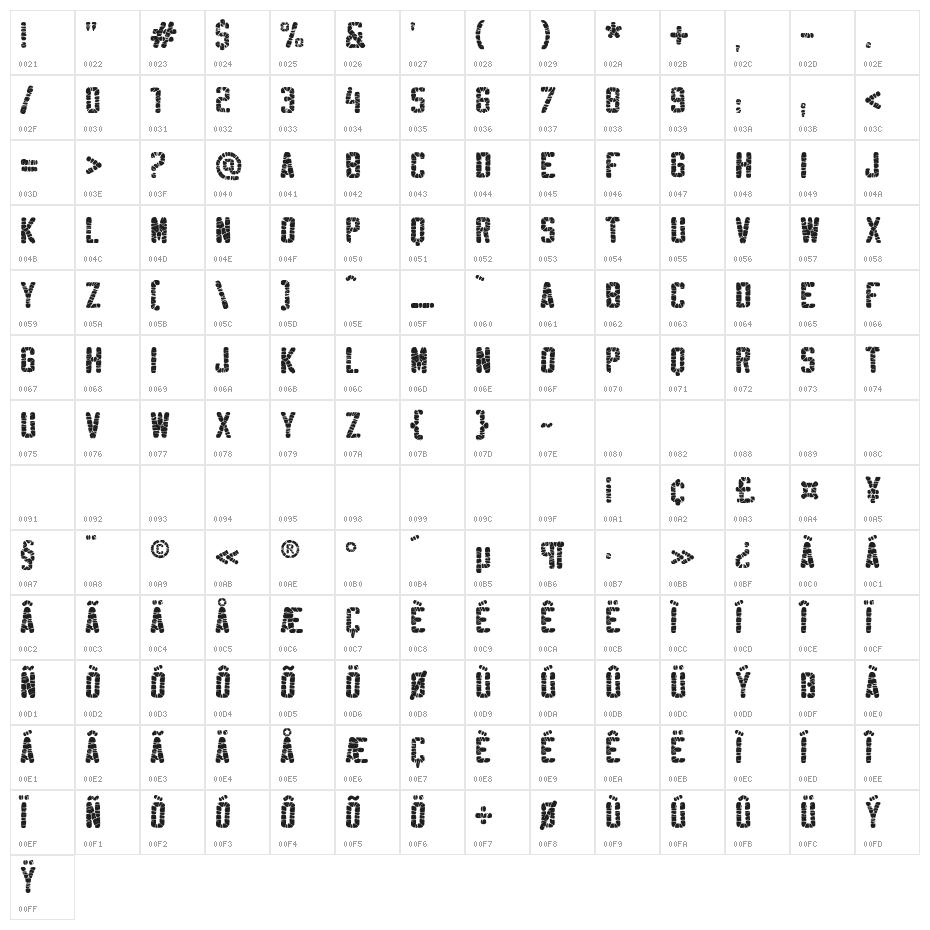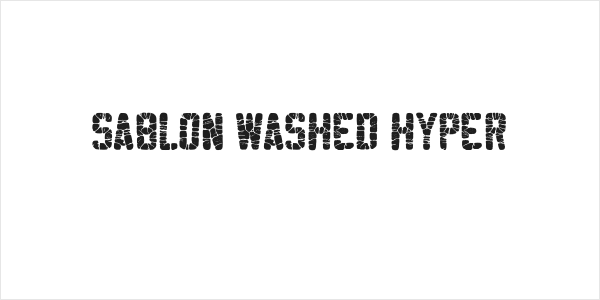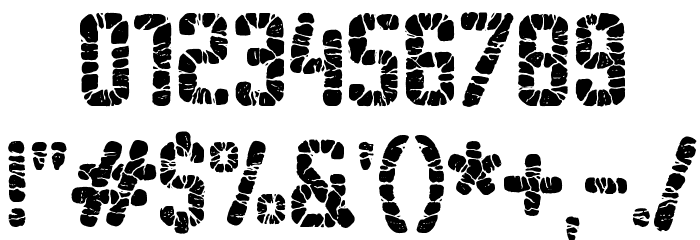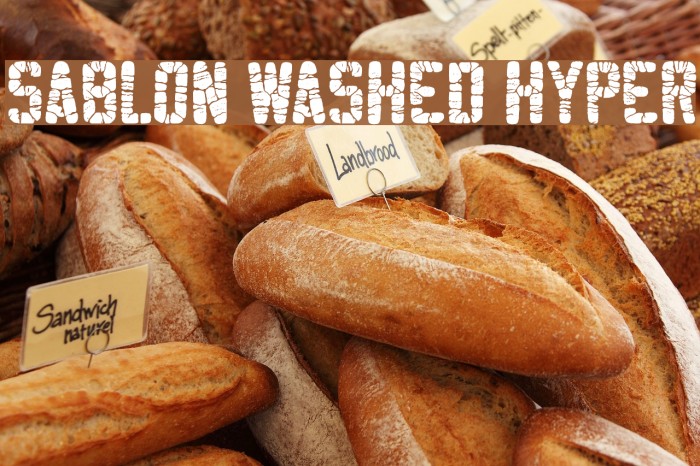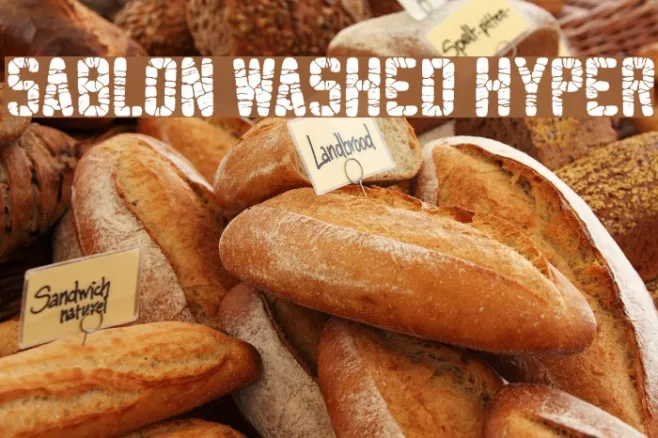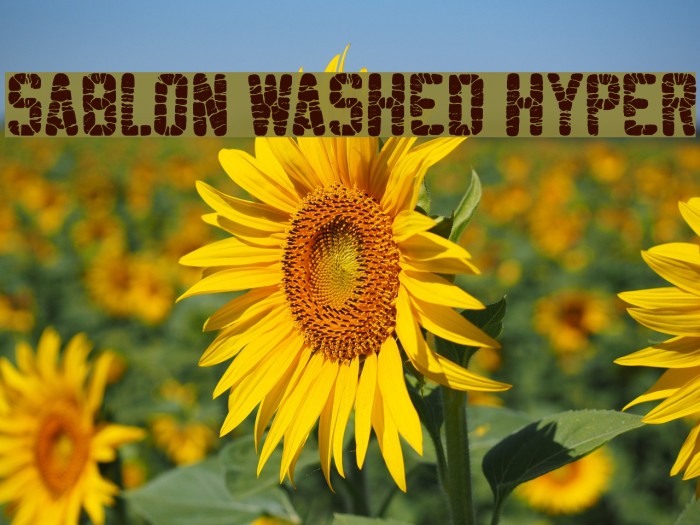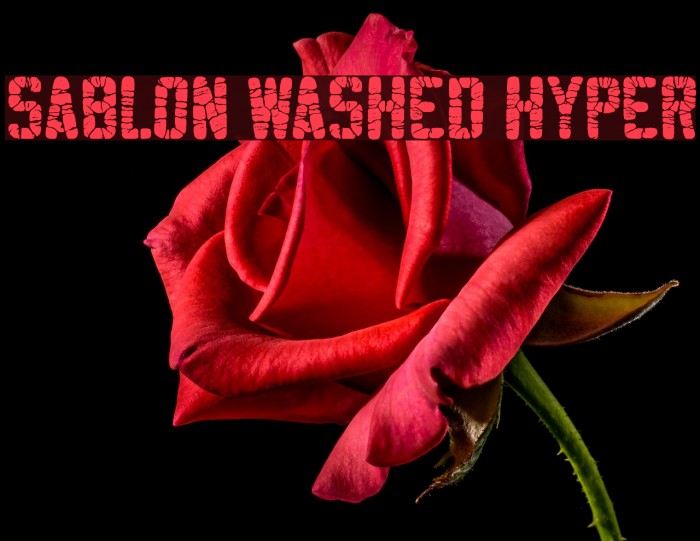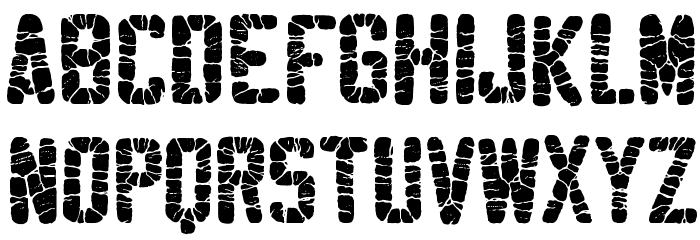
Sablon Washed Hyper Font
Sablon Washed Hyper Description
This font features a bold and rugged design with a distressed, cracked texture that gives it a unique, weathered appearance. The characters are uniformly bold, with a consistent thickness throughout, creating a strong visual impact. The texture within each letter resembles cracks or fissures, adding a dynamic and edgy feel. This style is reminiscent of worn-out or vintage signage, making it ideal for projects that require a rustic or industrial aesthetic. The font maintains readability despite its decorative elements, ensuring it can be used effectively in various design contexts.